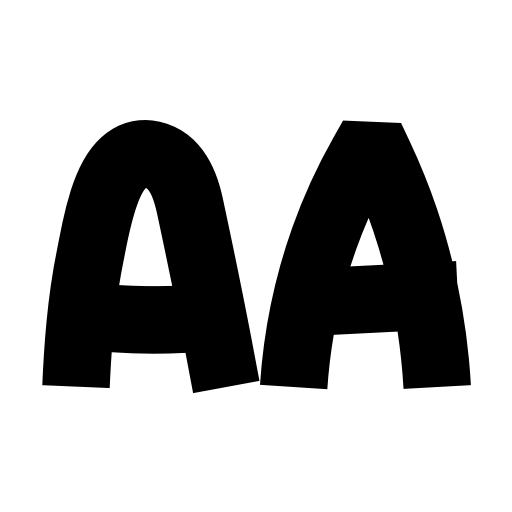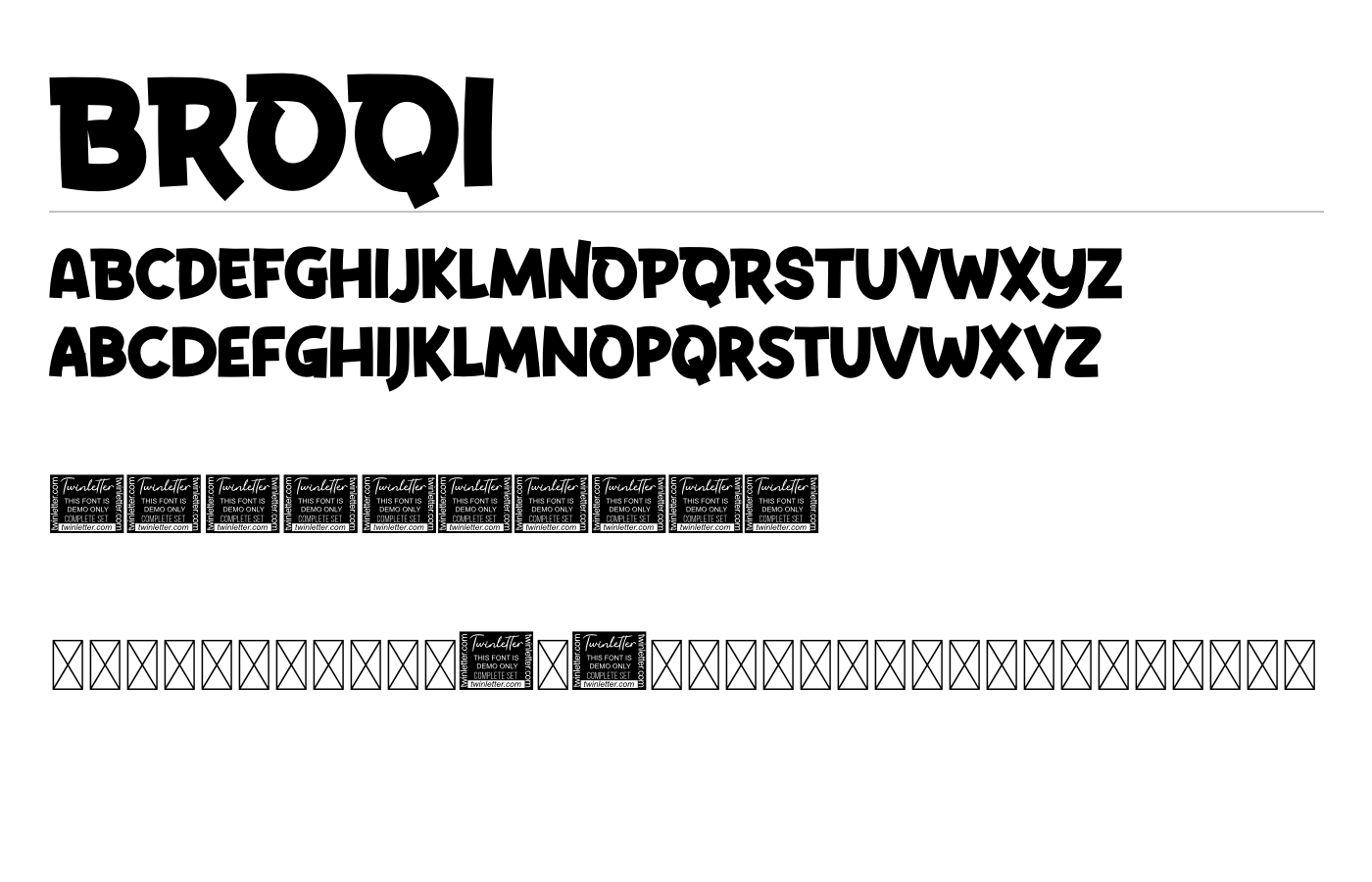
BROQI is a bold, playful sans serif font with a chunky, slightly irregular design that adds a fun and informal vibe. Its wide, heavy letterforms and unique quirks make it perfect for eye-catching headlines, logos, and creative projects needing a friendly, approachable style. This font works especially well in branding and posters where a strong, lively personality is desired.
BROQI Font
About BROQI Font